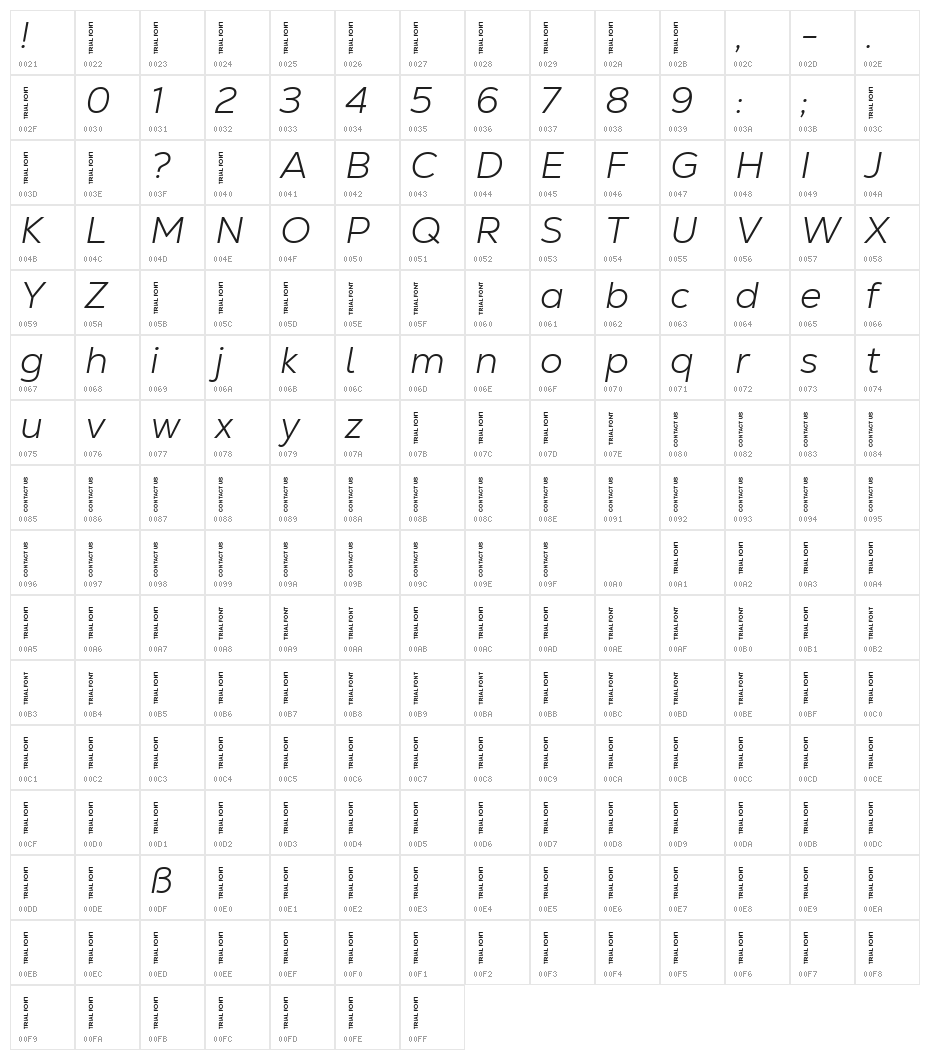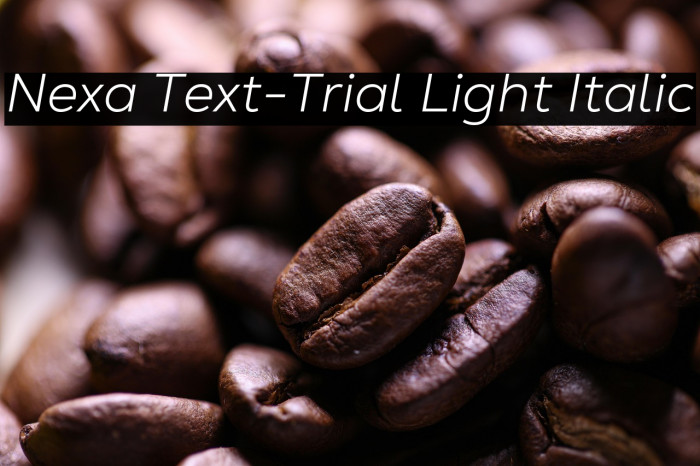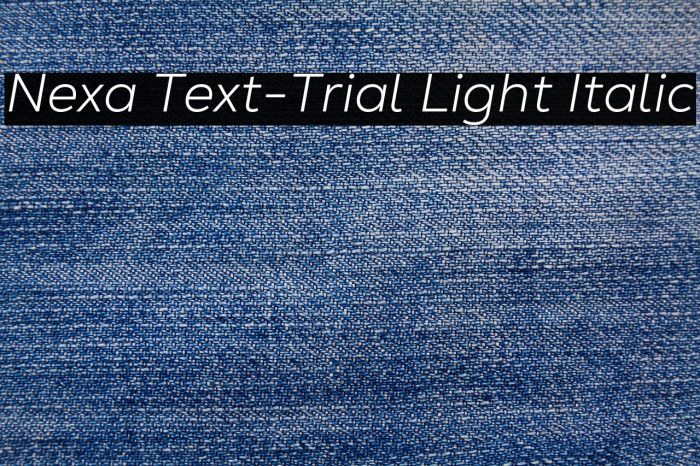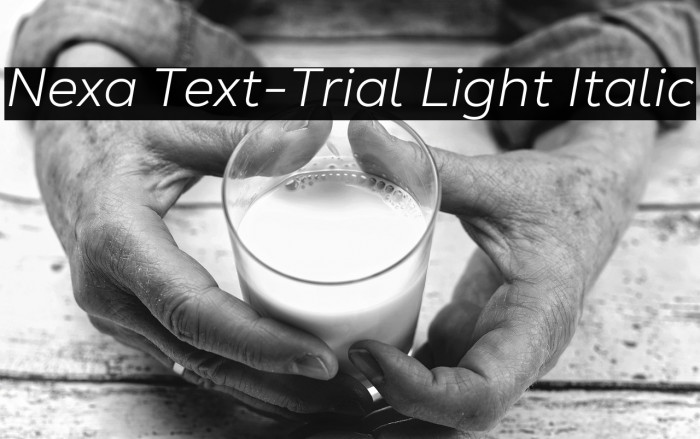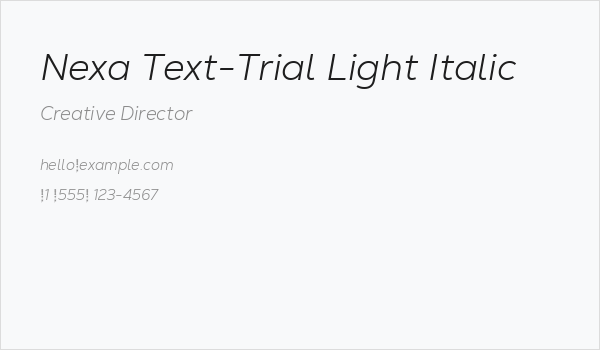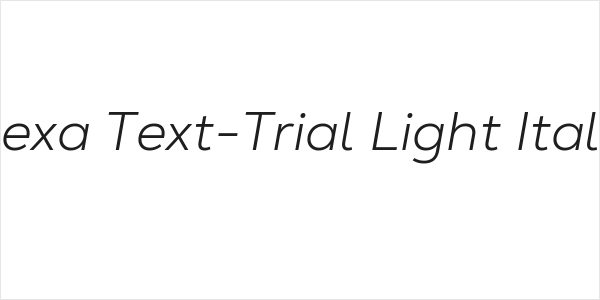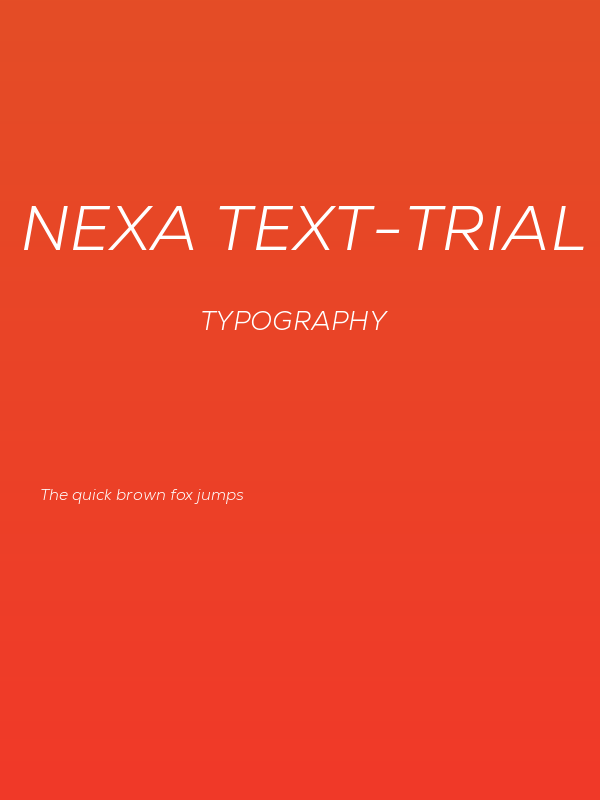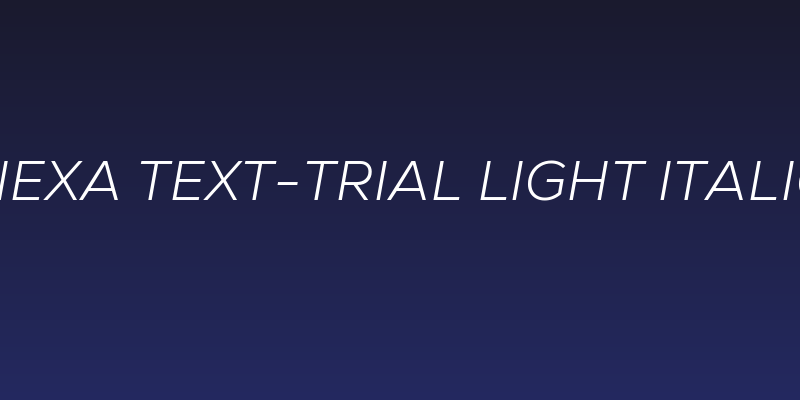
Nexa Text-Trial Light Italic Font
Nexa Text-Trial Light Italic Description
This font features a clean and modern sans-serif design with a light weight and italic style. The characters are sleek and slightly condensed, offering a contemporary look that is both elegant and readable. The uppercase and lowercase letters maintain a consistent style, with smooth curves and a slight slant that adds a dynamic feel. The numerals are clear and well-proportioned, making them suitable for various applications. Special characters are included, maintaining the font's overall aesthetic. The spacing between characters is normal, providing a balanced and harmonious appearance.
| Proposed Projects | Ideal for modern branding, editorial design, digital interfaces, and minimalist posters. |